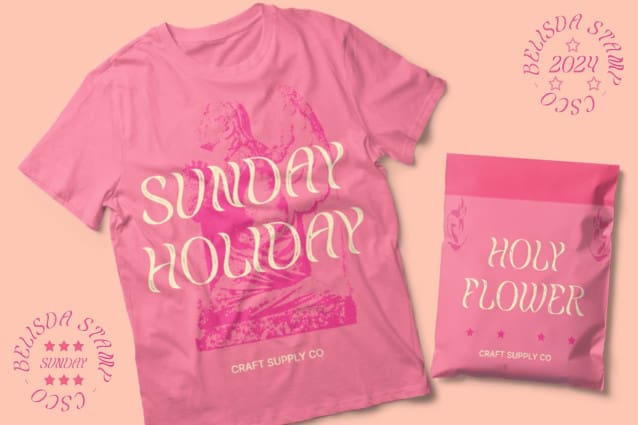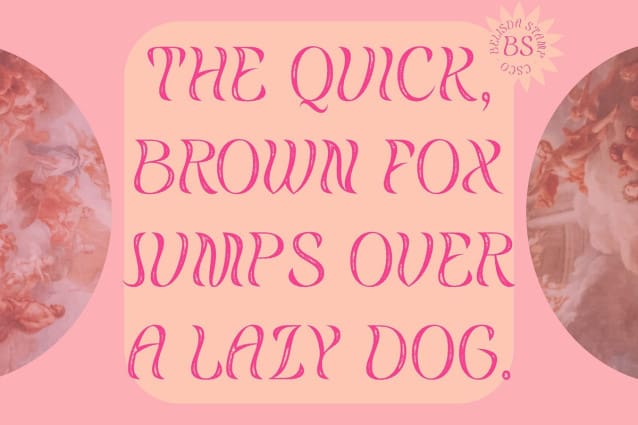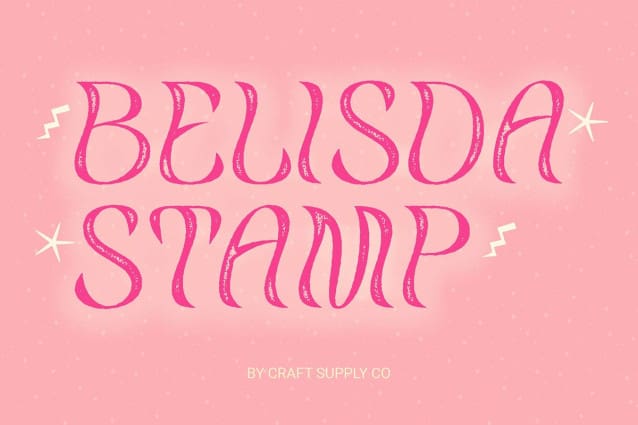
Belisda Stamp Font
Belisda Stamp Font: Embracing Nature’s Curves. Inspired by Nature Belisda Stamp draws inspiration from the graceful curves of leaves, echoing the organic beauty of nature. Its design reflects the fluidity and elegance found in art nouveau aesthetics.
Distinctive Lushness With its intricate detailing and lush, flowing forms, This font stands out as a unique display font. Each character embodies the delicate intricacies of foliage, capturing the essence of natural beauty.
Stamp Effect for Impact The stamp effect adds depth and texture to This font, enhancing its visual appeal and making it ideal for eye-catching display purposes. Each letter appears embossed, creating a tactile and memorable impression.
Versatile Display Font This font versatility extends across various design applications, from branding and packaging to posters and invitations. Its ornate yet legible style adds a touch of sophistication to any project.
Nature’s Elegance in Typography This font celebrates the beauty of nature through its art nouveau-inspired design and stamped effect. With its organic curves and striking visual presence, this font brings a touch of elegance and sophistication to every display project. Embrace the lushness of This font and elevate your designs with its natural charm.